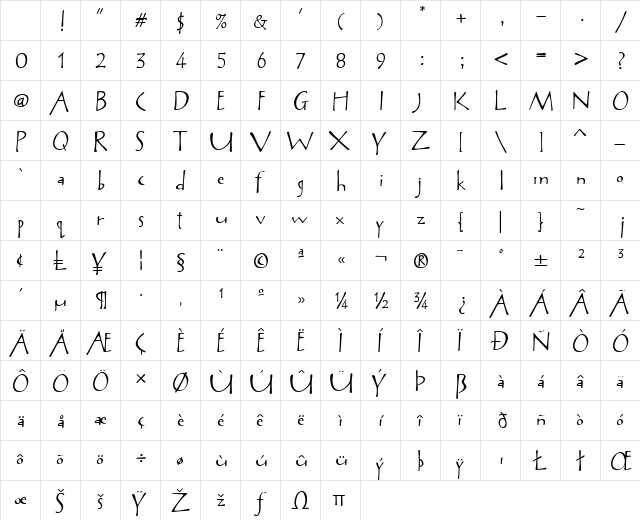
Complete Avril Regular glyph index. Displaying only characters natively supported by Avril Regular font.
Avril is a composed and adaptable typeface that performs quietly and consistently across a wide range of design contexts.